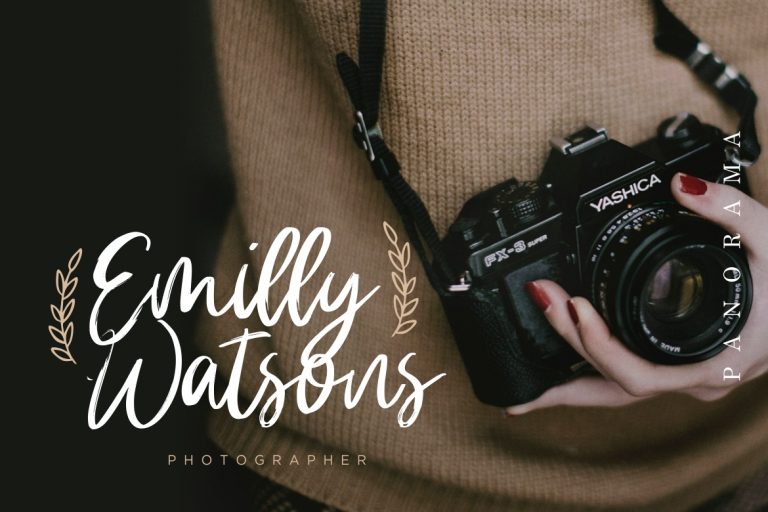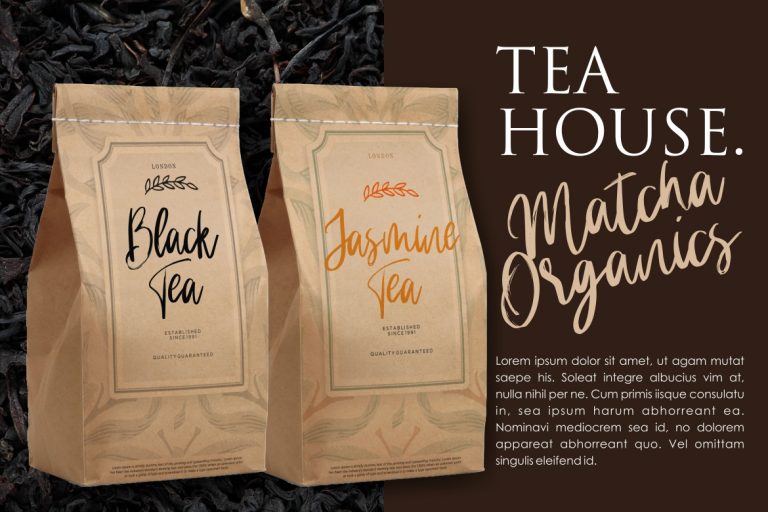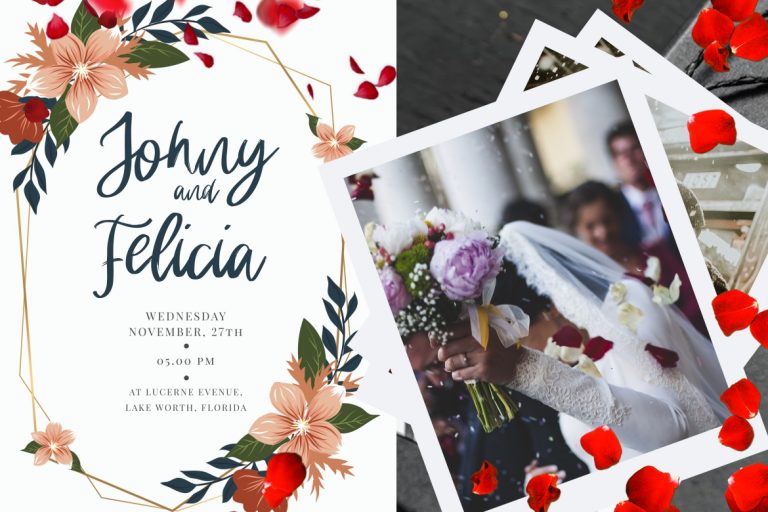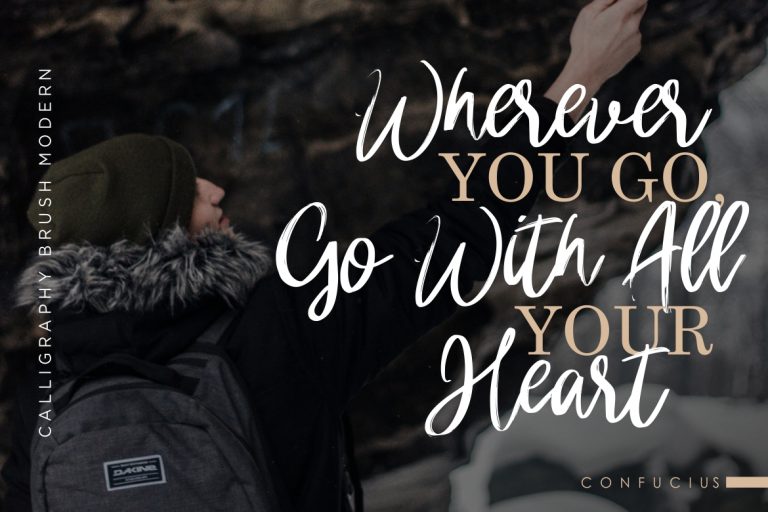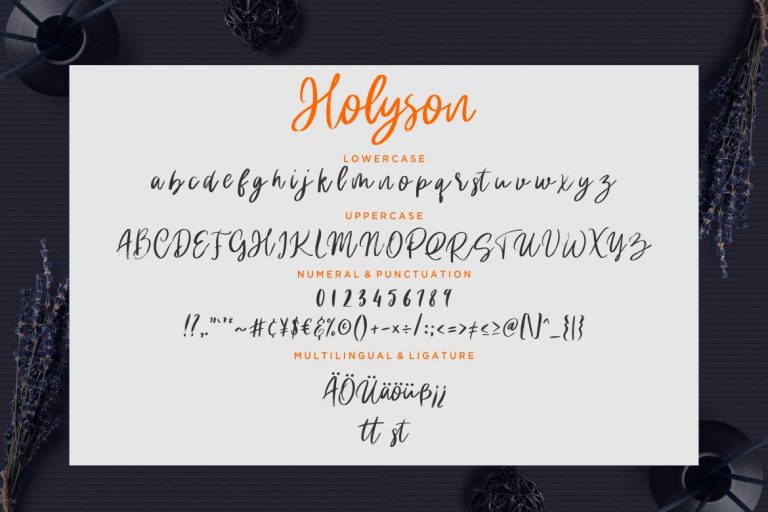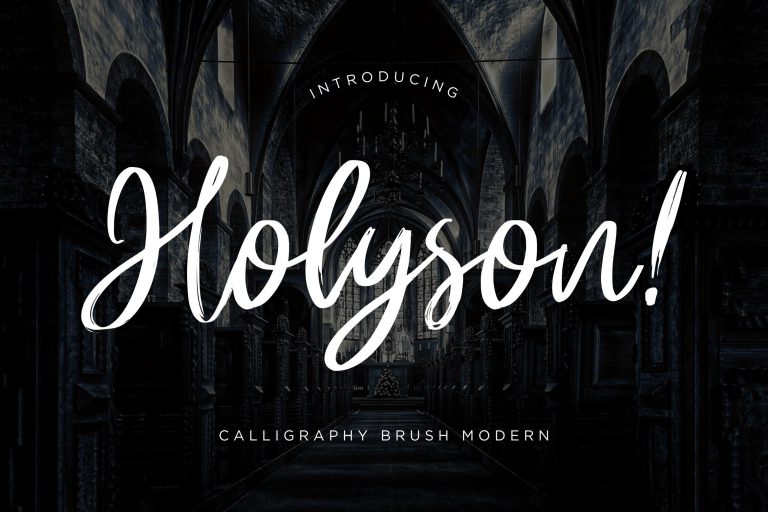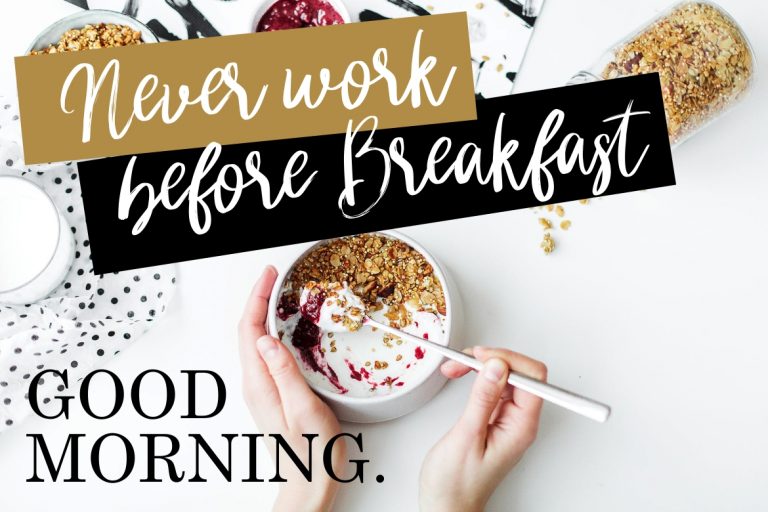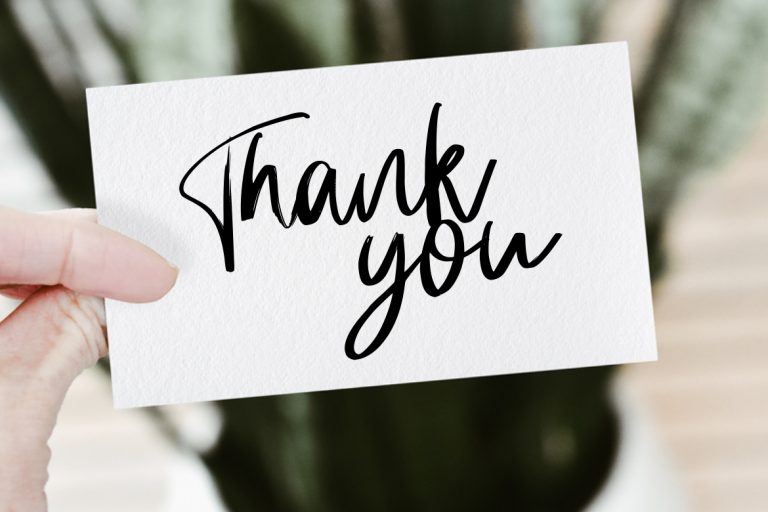
Holyson Calligraphy is a handwritten calligraphy with brush rough style looks modern and elegant.
Holyson Calligraphy is perfect for branding projects, logo, wedding designs, social media posts, advertisements, product packaging, product designs, label, photography, watermark, invitation, stationery and any projects that need handwriting taste.
• Fonts include multilingual support for; ä ö ü Ä Ö Ü ß ¿ ¡
Holyson Calligraphy Brush